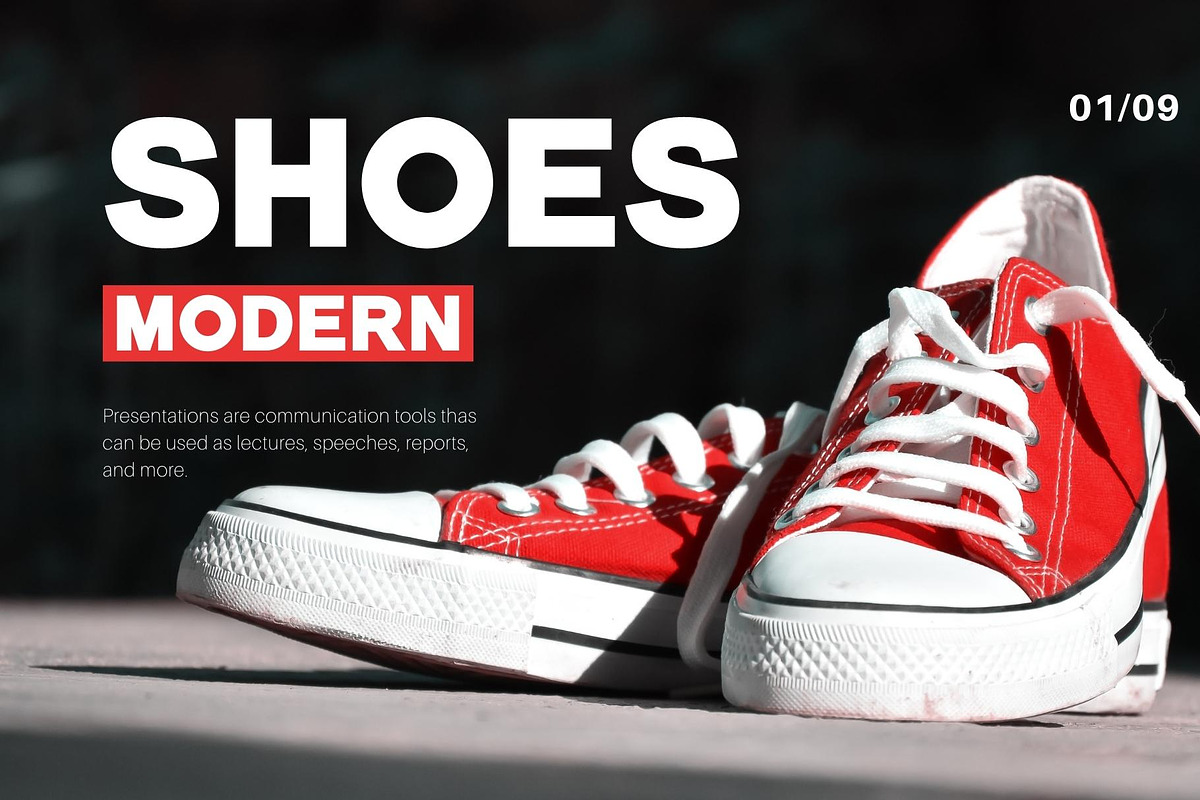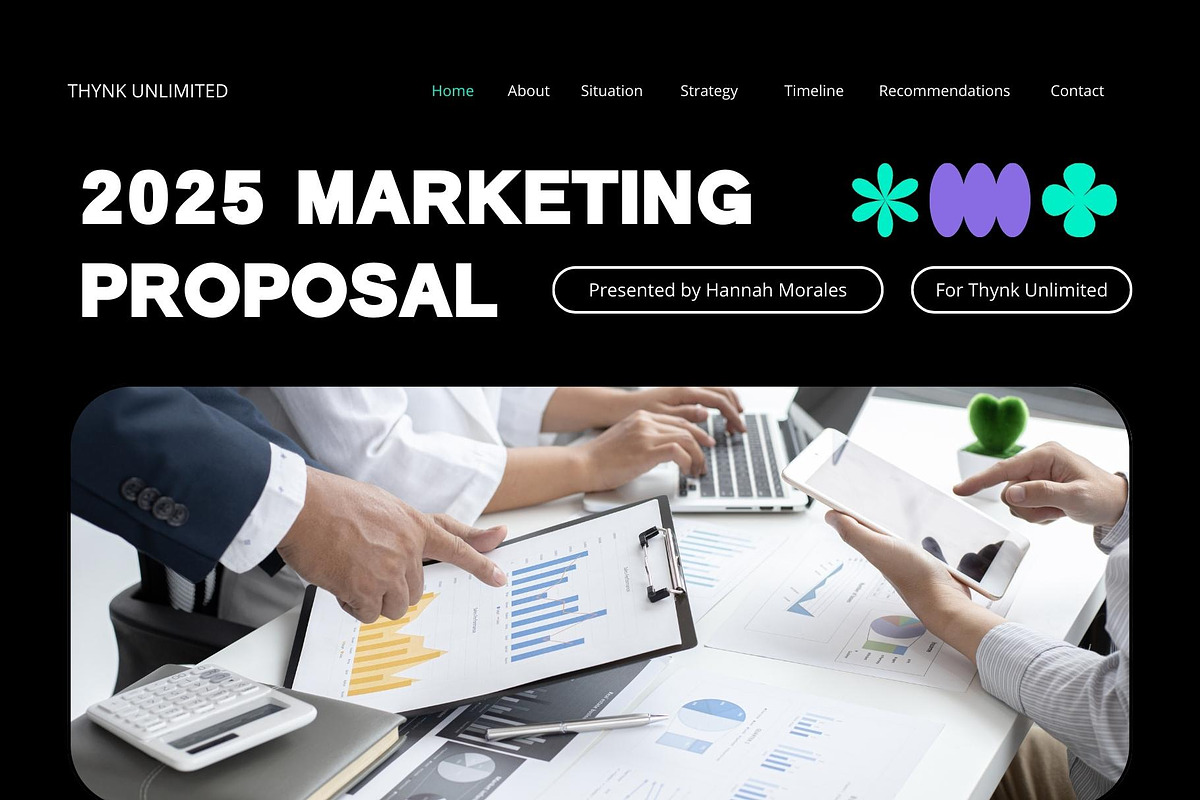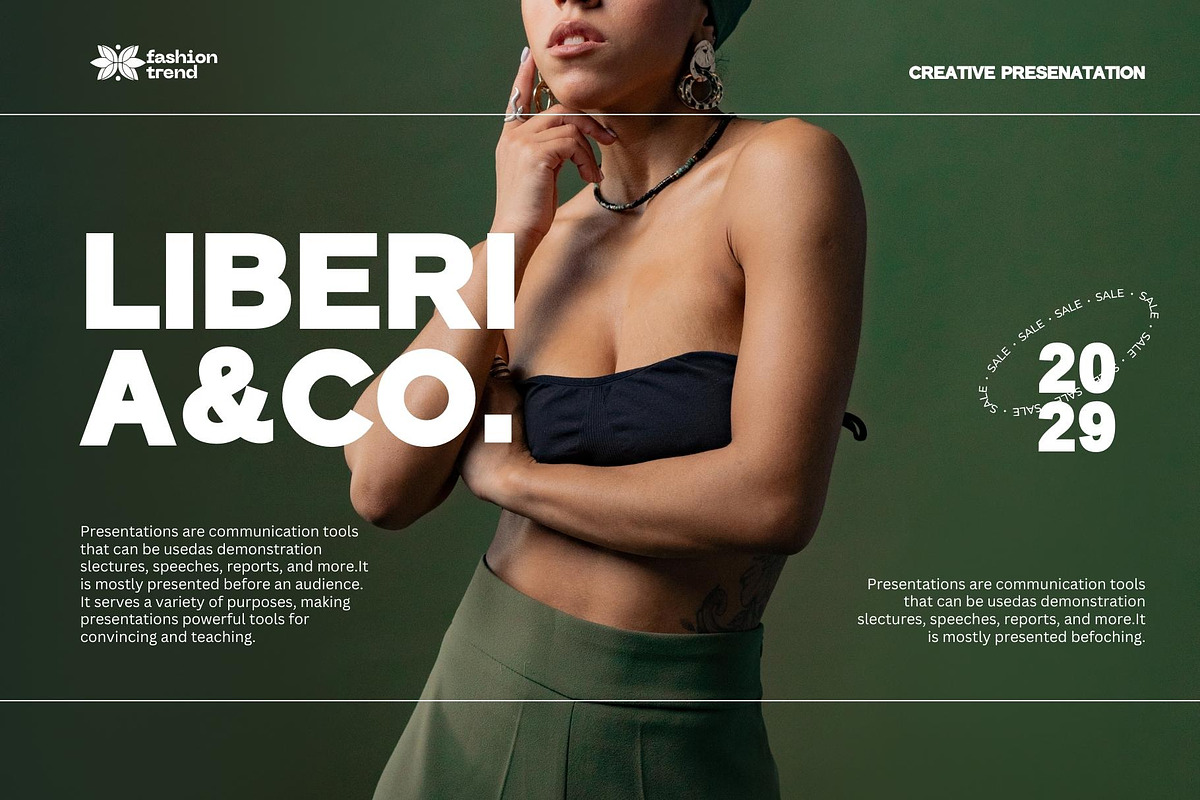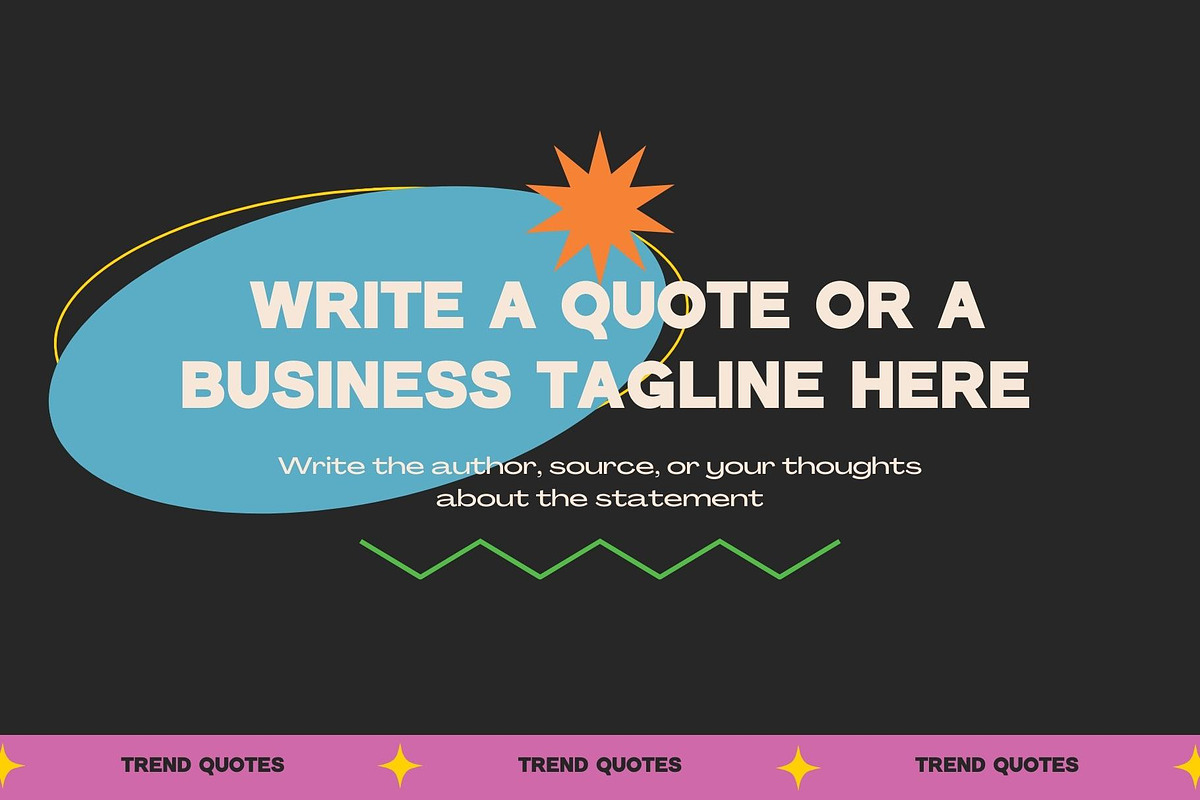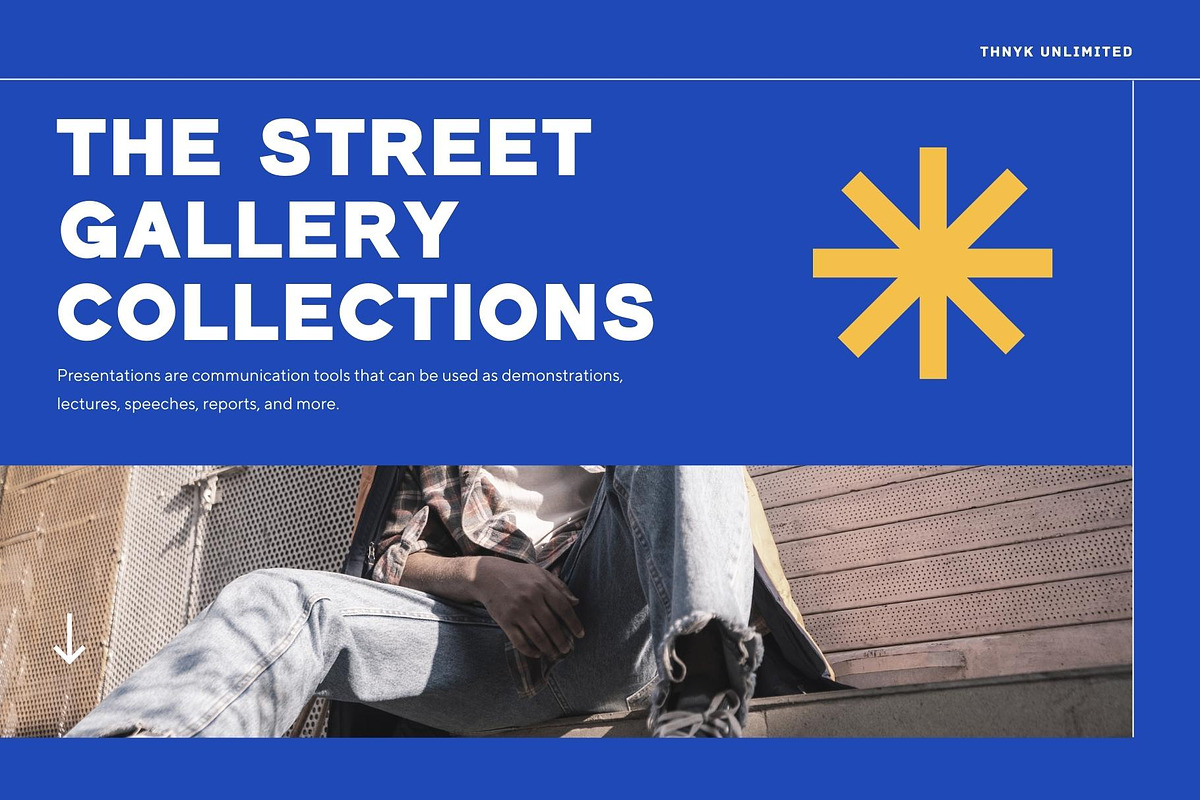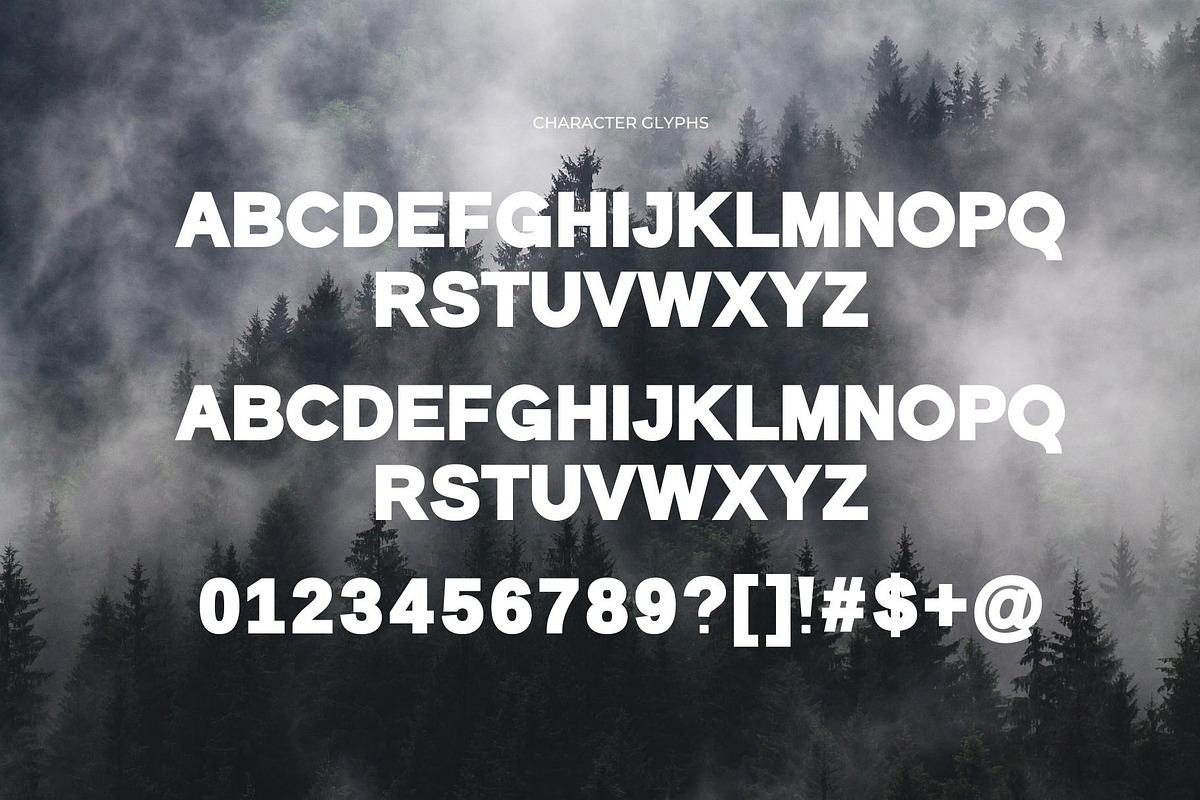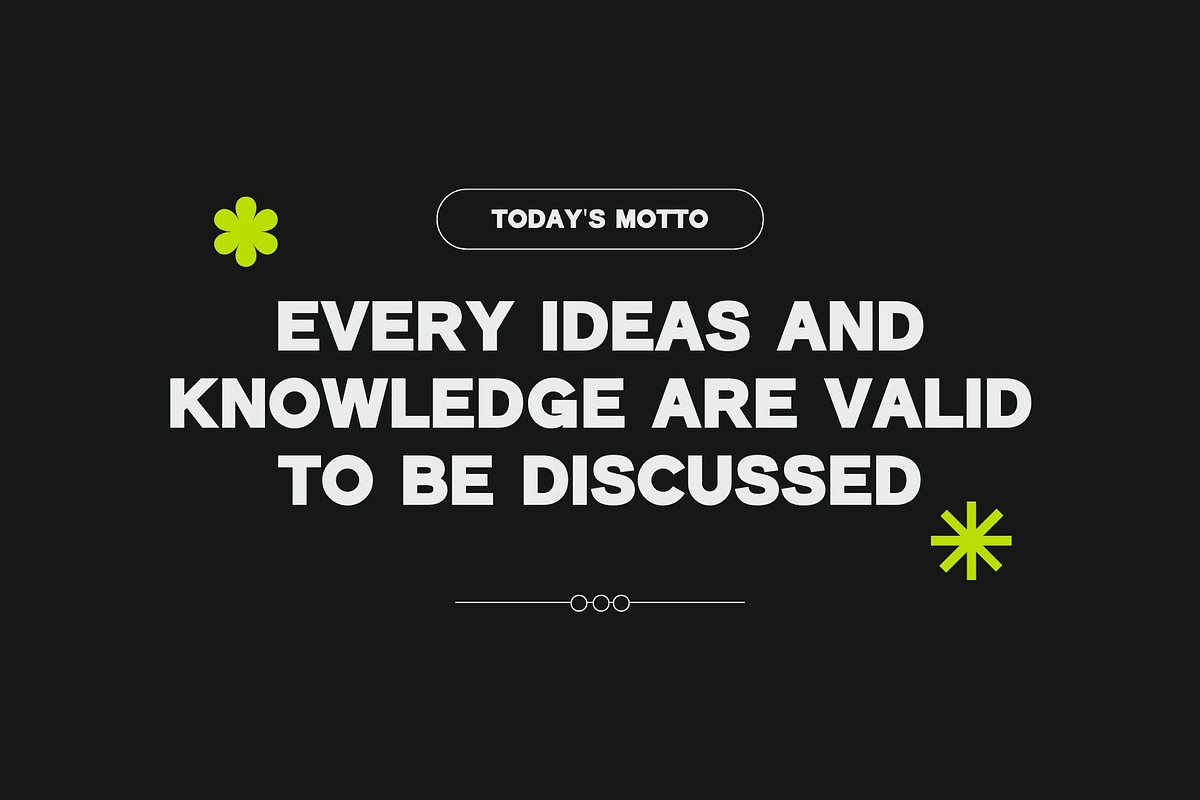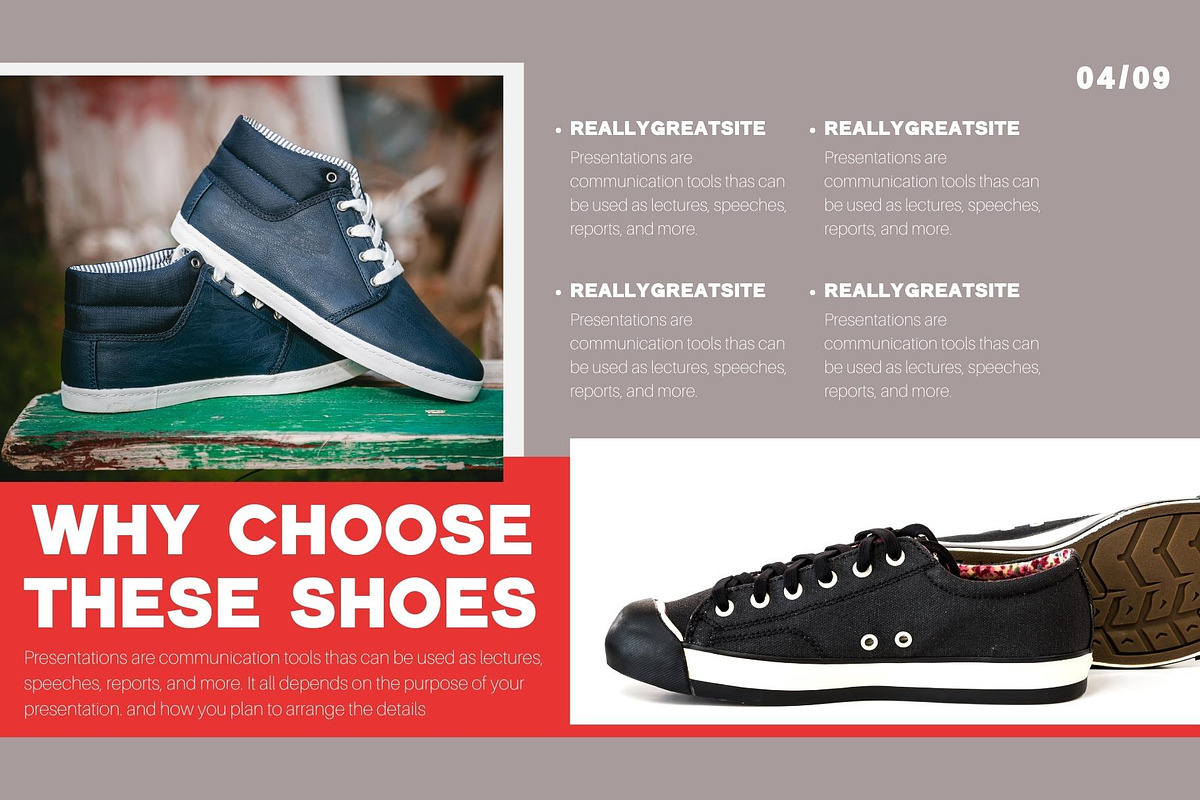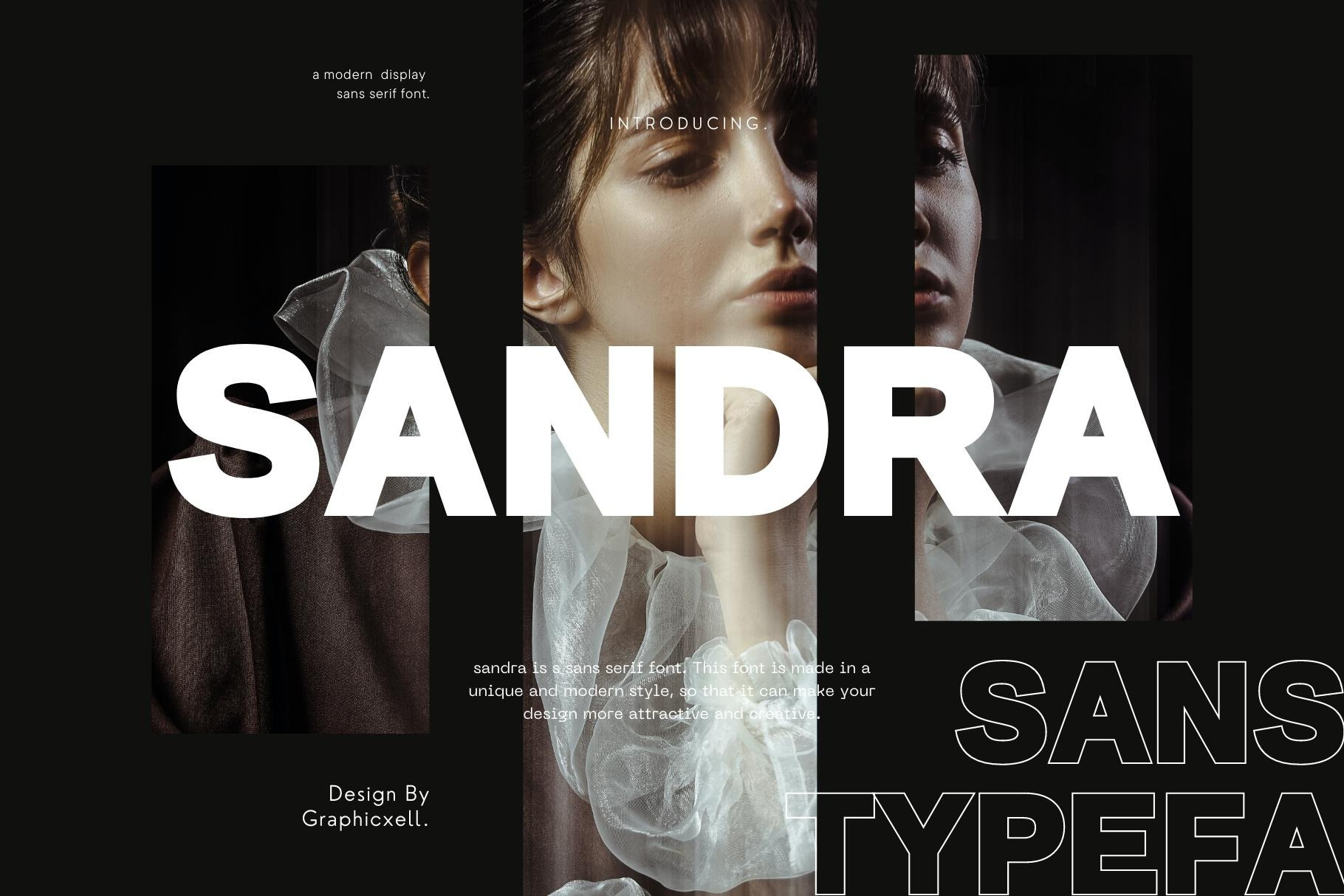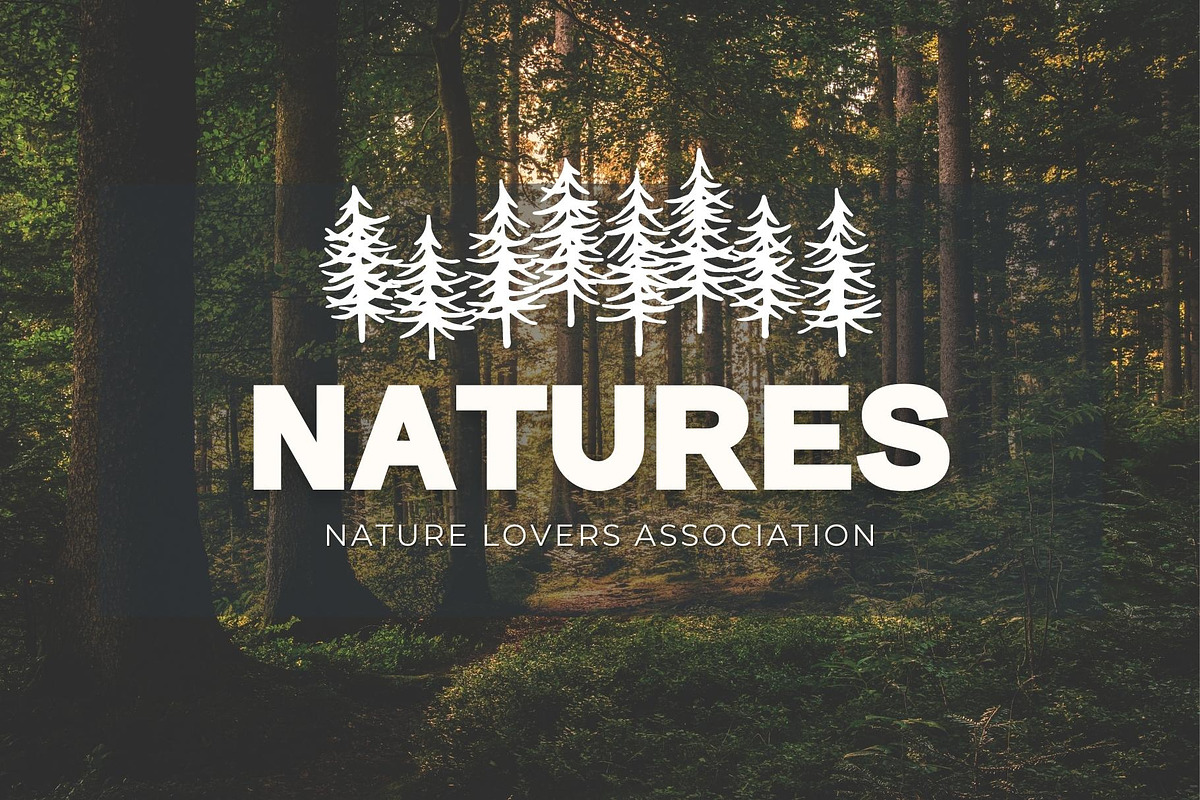
Sandra Bold Sans Font Typeface
Sandra Bold Sans Font Typeface inspired by the famous minimalist logo perfect for the purposes of designing templates, brochures, videos, advertising branding, logos, invitation, layout design, elegant crafting, beauty design and other